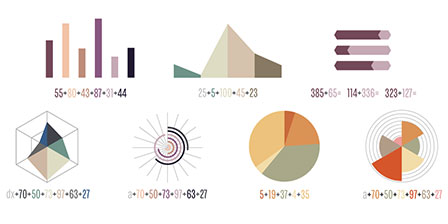
Chartwell Font Updated
In 2011, type designer Travis Kochel devised a very clever method of creating charts and graphs with a font he called FF Chartwell.
FF Chartwell allowed you to create great-looking pie charts, bar graphs, and line graphs by simply typing values separated by + signs, applying the font, and turing on ligatures. It was a miraculous solution for people who've long waited in vain for graph tools to be added to InDesign.
Now, FF Chartwell has been added to the FontFont library, updated, and extended to allow you to create new kinds of graphs. Four new styles have been added: Bars Vertical, and a Polar Series comprised of Rose, Rings, and Radar. With the Polar Series, graphs dynamically adapt to the number of values you input, as well as the actual values themselves.